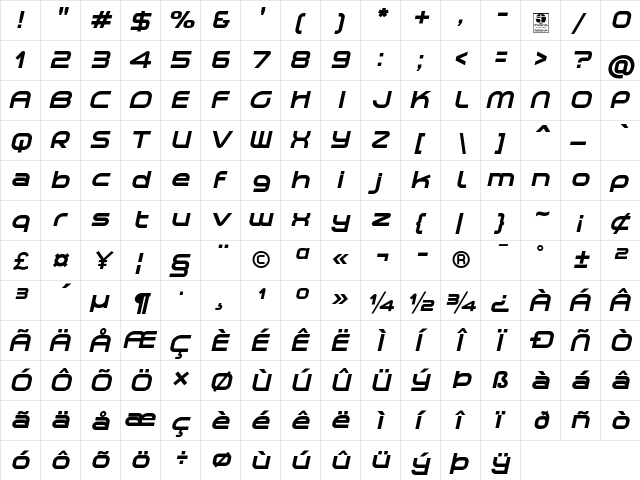
Planetium-X Bold Italic Demo Regular Font Preview
Design Context for Planetium-X Bold Italic Demo Typeface
Planetium-X Bold Italic Demo takes a measured approach to typography — its balanced proportions and neutral character make it a reliable workhorse for both digital and print work. Its italic angle brings a sense of urgency and motion to the letterforms. Its bold stroke weight gives it real presence on the page.
Pro Tip: Use Planetium-X Bold Italic Demo for emphasis, pull quotes, and subheadings where its slanted energy can add rhythm to the layout.